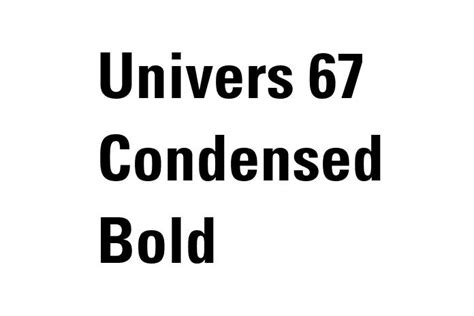
Univers® 67 Bold Condensed
Web univers has the uncanny ability to combine well with fonts of many different styles and origins: Download univers 67 condensed bold for free at. Old style fonts such as:
Web univers has the uncanny ability to combine well with fonts of many different styles and origins: Old style fonts such as: Web univers has the uncanny ability to combine well with fonts of many different styles and origins: Download univers 67 condensed bold for free at.